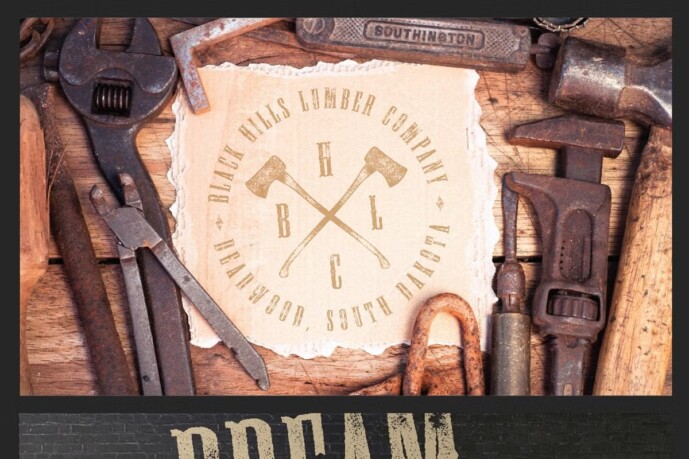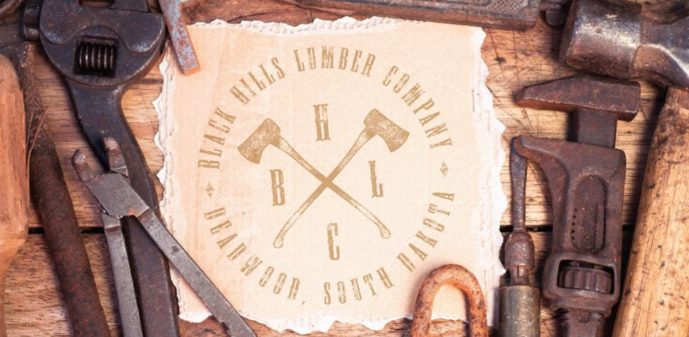
Deadwood Vintage Font
Deadwood Vintage Font, this font family release is inspired by the historic mining town of Deadwood, South Dakota. It is reminiscent of the classic condensed style you might find painted on storefront signs from that era.